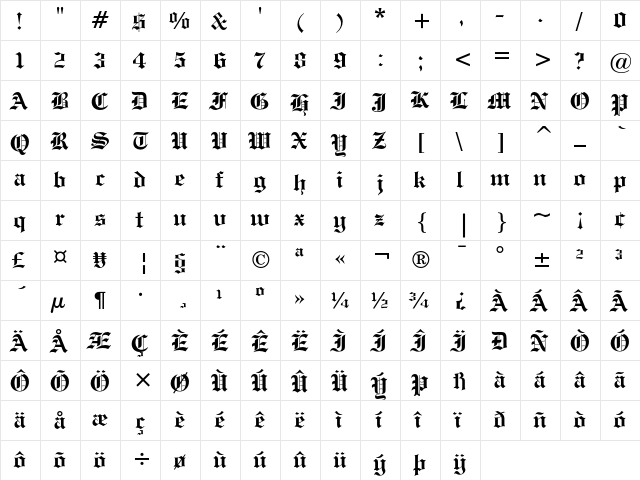
Engravers' Old English Bold
Design Context for Engravers' Old English Typeface
Engravers' Old English is a composed and adaptable typeface that performs quietly and consistently across a wide range of design contexts. The heavy weight commands attention and anchors typographic hierarchies.